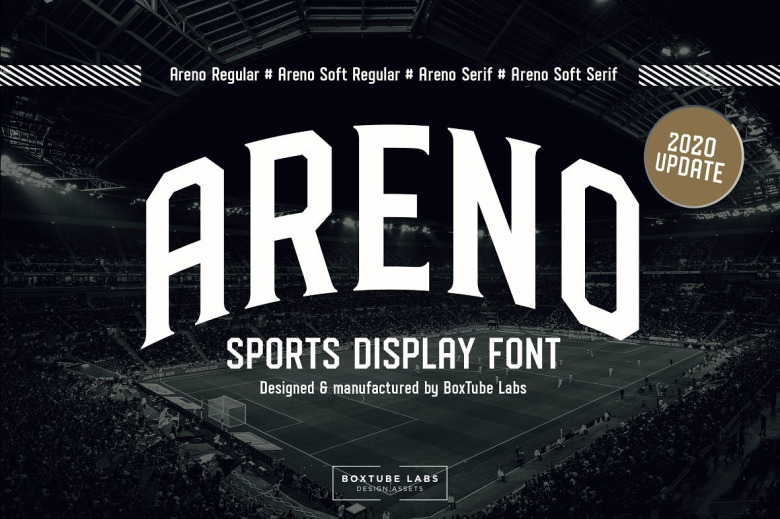
Areno Font Family
Introducing Areno! It is designed by BoxTube Labs, this is a premium font, are sold on creativemarket, but it was great, it is free today for download. The first font family from BoxTube Labs. ARENO – an all caps display font family that comes in 5 styles. • Areno Regular • Areno Rounded • Areno Serif • Areno Serif Rounded • Areno Rough • Perfect for headlines, logos, posters & apparel design.